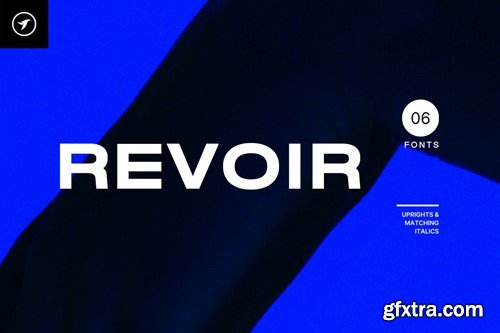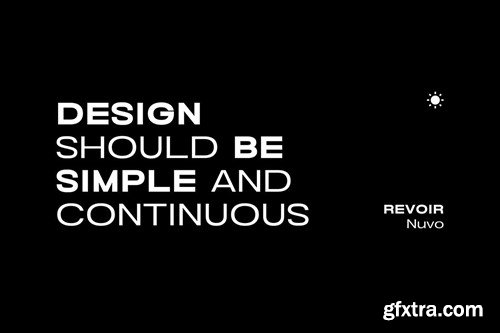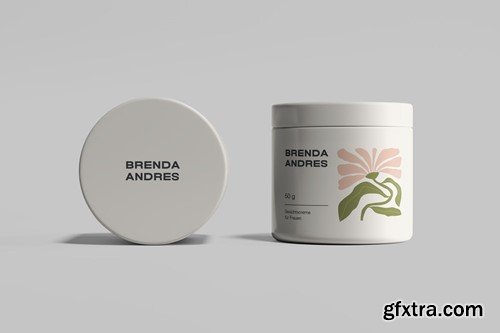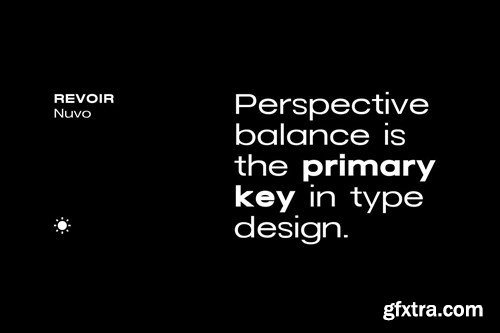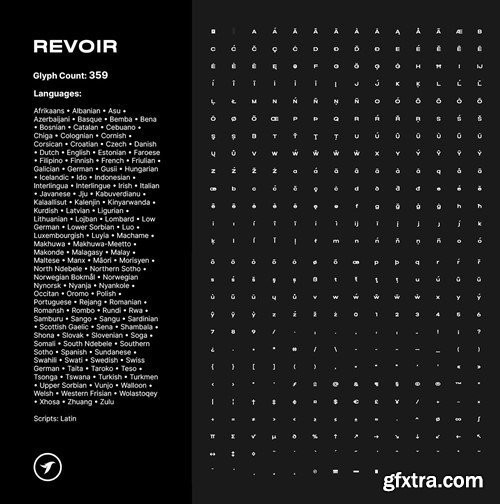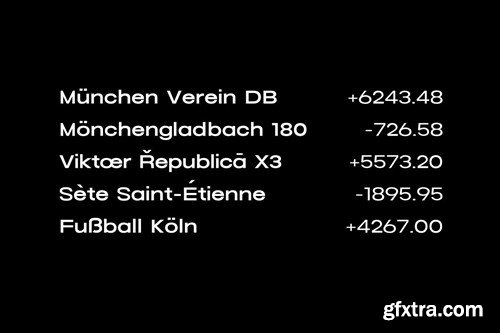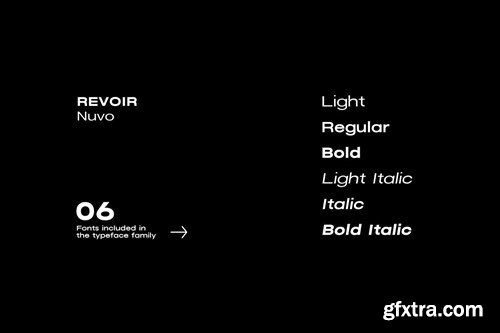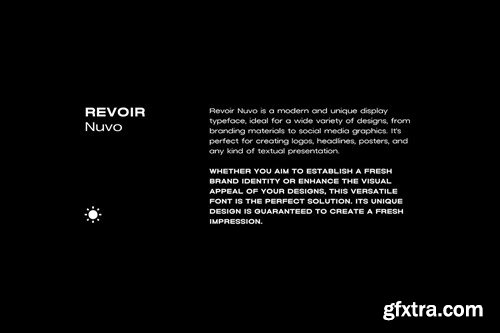
Revoir Nuvo is a modern and unique display typeface, ideal for a wide variety of designs, from branding materials to social media graphics. It's perfect for creating logos, headlines, posters, and any style of modern textual presentation. Whether you aim to establish a fresh brand identity or enhance the visual appeal of your designs, this versatile font is the perfect solution. Its unique design is guaranteed to create a fresh impression. --- TECH SPECS: Total number of fonts in the family: 06 (Light, Regular, Bold, Light Italic, Bold Italic) Total number of glyphs in each font: 359 Extended Language Support Afrikaans • Albanian • Asu • Basque • Bemba • Bena • Bosnian • Catalan • Cebuano • Chiga • Colognian • Cornish • Corsican • Croatian • Czech • Danish • Embu • English • Esperanto • Estonian • Faroese • Filipino • Finnish • French • Friulian • Galician • Ganda • German • Gusii • Hungarian • Icelandic • Ido • Inari Sami • Indonesian • Interlingua • Irish • Italian • Javanese • Jju • Jola-Fonyi • Kabuverdianu • Kalaallisut • Kalenjin • Kamba • Kikuyu • Kinyarwanda • Kurdish • Latvian • Lithuanian • Lojban • Low German • Lower Sorbian • Luo • Luxembourgish • Luyia • Machame • Makhuwa-Meetto • Makonde • Malagasy • Malay • Maltese • Manx • Māori • Meru • Morisyen • North Ndebele • Northern Sami • Northern Sotho • Norwegian Bokmål • Norwegian Nynorsk • Nyanja • Nyankole • Occitan • Oromo • Polish • Portuguese • Rejang • Romanian • Romansh • Rombo • Rundi • Rwa • Samburu • Sango • Sangu • Sardinian • Scottish Gaelic • Sena • Shambala • Shona • Slovak • Slovenian • Soga • Somali • South Ndebele • Southern Sotho • Spanish • Sundanese • Swahili • Swati • Swedish • Swiss German • Taita • Taroko • Teso • Tsonga • Tswana • Turkmen • Upper Sorbian • Vunjo • Walloon • Walser • Welsh • Wolastoqey • Wolof • Xhosa • Zulu Scripts: Latin FONT FILE FORMATS: The pack contains Desktop Fonts (OTF, TTF) and Web Fonts (all EOT, SVG, and WOFF included). HTML & CSS WebFont preset and demo are available in the download pack. --- CREDITS: Typeface designed & distributed by Designova®, made with ♥ in Berlin.